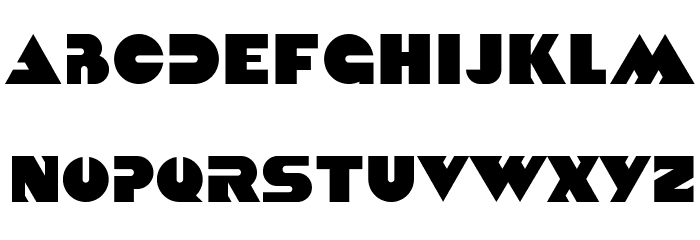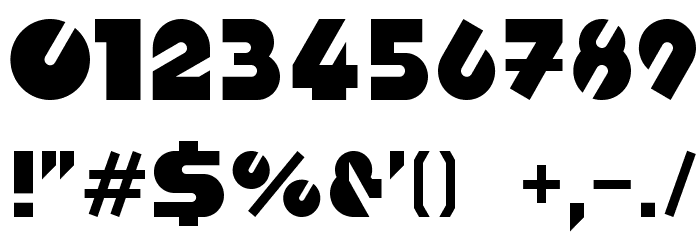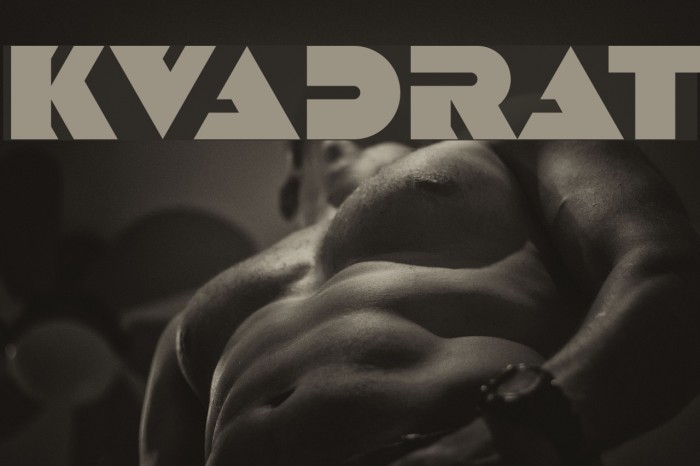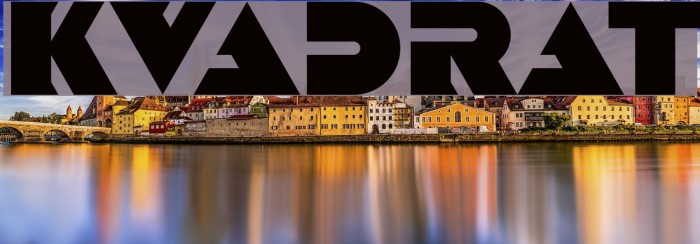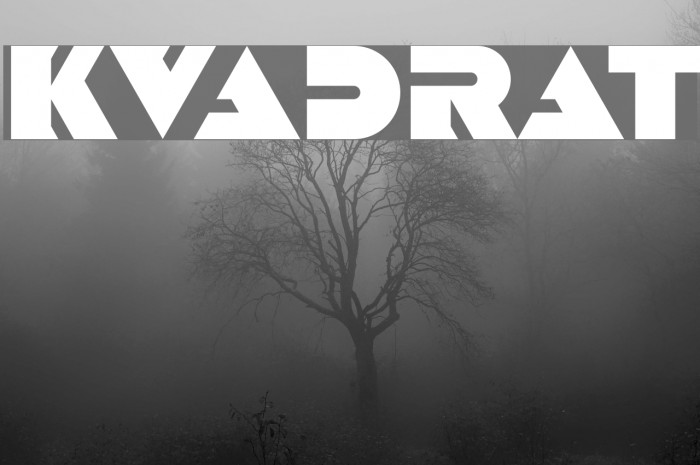
Kvadrat Font
This font features a bold and geometric design with strong, angular shapes and a modern aesthetic. The characters are constructed with a combination of sharp edges and solid forms, creating a striking visual impact. The uppercase letters are particularly distinctive, with unique cutouts and angles that give the font a futuristic and dynamic appearance. The numbers and special characters maintain this bold style, ensuring consistency across all elements. This font is ideal for projects that require a strong and attention-grabbing typeface.
A bold, geometric font with angular shapes and a modern aesthetic.
- Proposed Projects: Ideal for branding, posters, headlines, and any design requiring a bold, modern look.